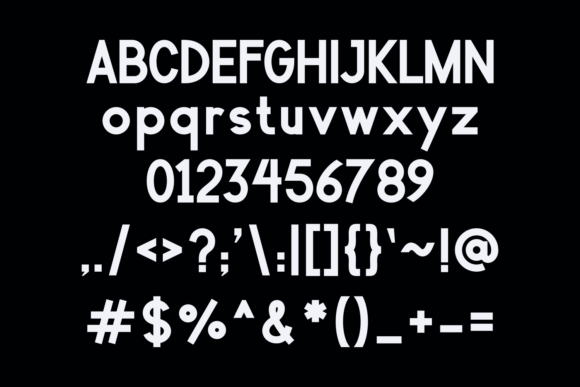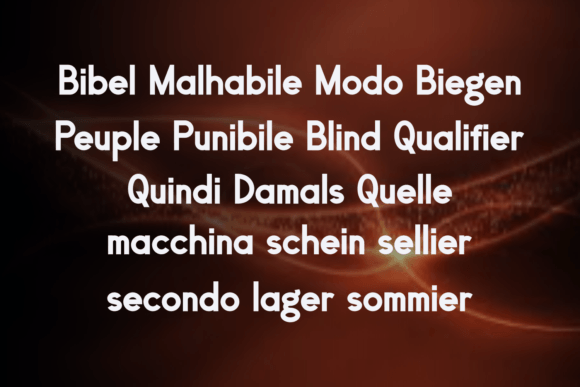
Introduction to Borsman Font Font
Fonts play a crucial role in design, and the Borsman Font font is a typeface that brings both character and versatility to any project. Whether you’re working on a branding project, a website, or a print design, the Borsman Font font offers a unique style that can elevate your work.
Borsman is a modern and neat sans serif font.
Incredibly versatile, this font will be suitable for a wide spectrum of applications .
Key Features of Borsman Font Font
Why Choose Borsman Font Font?
The Borsman Font font is more than just a typeface – it’s a design tool that helps you communicate your message with style and clarity. Its unique character set and versatile design make it suitable for a wide range of applications, from elegant invitations to bold headlines.
With its carefully crafted letterforms and balanced proportions, the Borsman Font font ensures readability and visual appeal across all mediums.
What makes Borsman Font font special?
The Borsman Font font stands out with its unique design, exceptional readability, and versatility across various design applications.